Dubai is a city obsessed with breaking records. It erected the world’s tallest building, boasts the world’s largest fireworks display, and is currently racing to build the world’s first hyperloop. Now it’s got another milestone to brag about: a specially-commissioned typeface, developed in partnership with Microsoft.
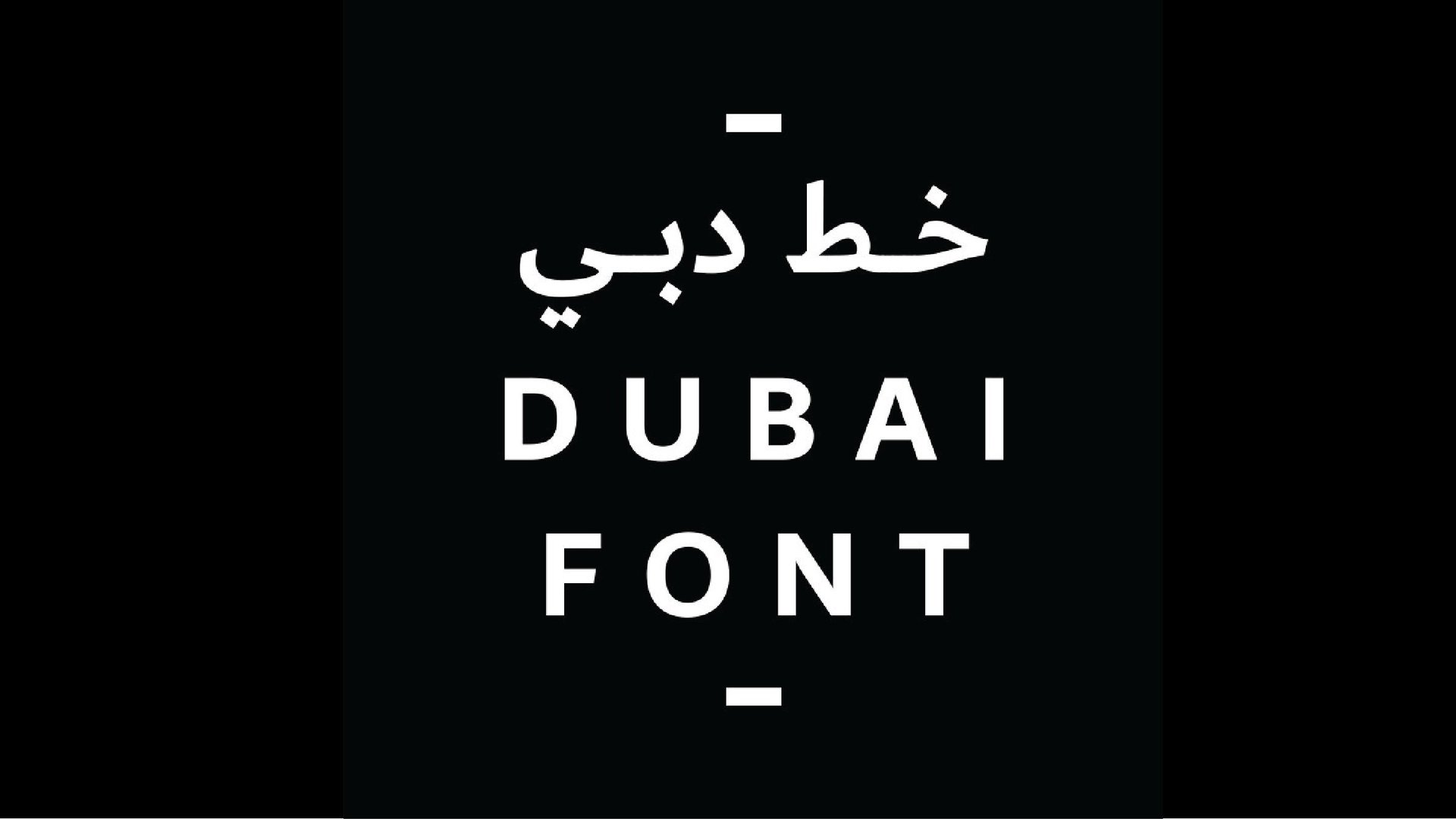
Dubai Font, which was designed simultaneously in both Arabic and Latin, is available in a total of 23 languages. It is pre-installed in Microsoft Office 365 and is freely available for Microsoft’s 100 million users in 180 countries. It’s also now available as a in Open Type and Webfont formats, for both Windows and Mac OS platforms.
The task of translating the calligraphic Arabic script to digital typography has challenged designers for decades. The conundrum lies in translating graceful calligraphic marks to pixel-based digital formats, and making sure they’re legible for a range of media—from print to websites, video screens, and mobile phones.
Few type designers have been successful in walking the line between functionality and beauty. But among them is Dubai Font’s creator Nadine Chahine. “The aim was to make the font legible, while also conveying the spirit of Dubai as a city with openness to other cultures who live on its land in harmony and peace,” she told the Khaleej Times, a daily English-language UAE newspaper.
UAE crown prince Hamdan bin Mohammed al-Maktoum is asking all government agencies to use it in their official correspondence. He framed the font’s development as a part of Dubai’s effort to become a world-class tech hub. ”The launch of the Dubai Font to the world is a very important step for us as part of our continuous efforts to be ranked first in the digital world,” he said.